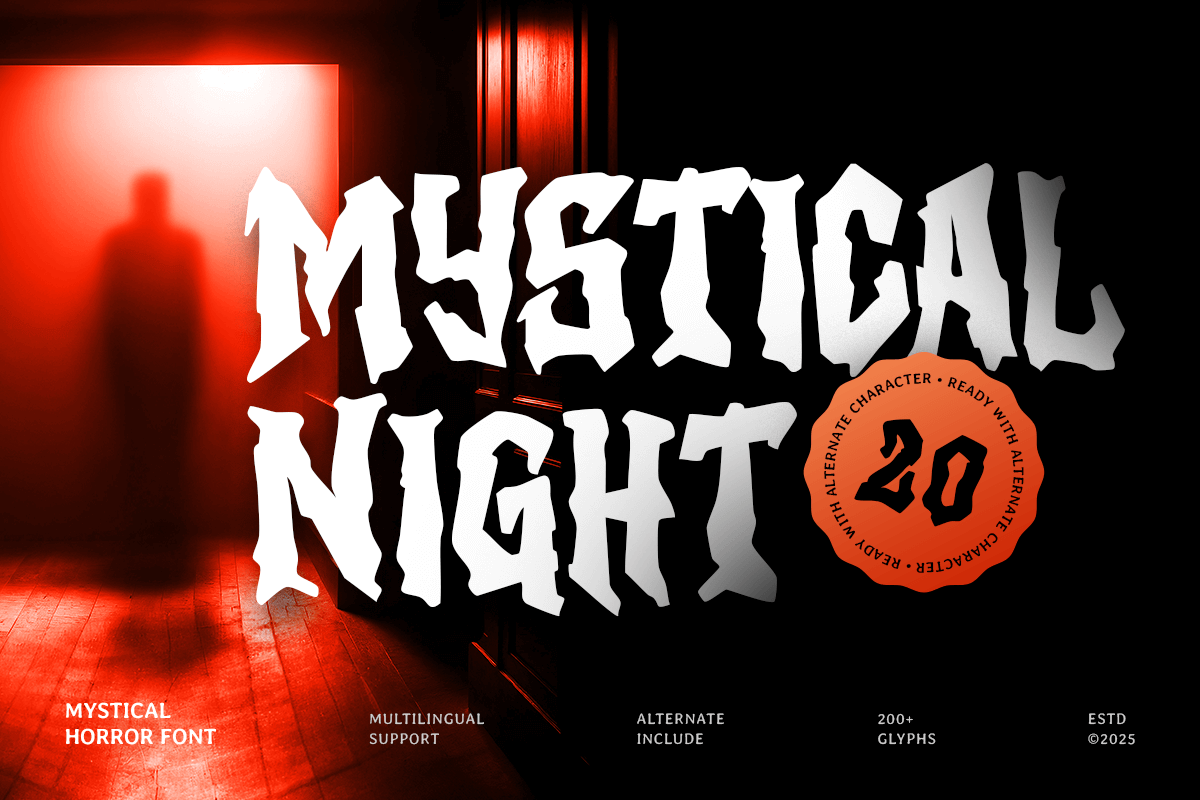
Mystical Night
-Mystical Horror Font
Mystical Night – Mystical Horror Font
Mystical Night is a mystical horror font inspired by dark atmospheres, supernatural stories, and mysterious night visions. With its eerie character shapes and haunting details, Mystical Night creates a powerful visual style perfect for horror-themed projects, fantasy artwork, and cinematic designs.
Designed for horror posters, movie titles, book covers, Halloween graphics, logos, game branding, and dark packaging, Mystical Night brings an unforgettable atmosphere to every composition. Its dramatic appearance helps designers create visuals filled with mystery, suspense, and supernatural energy.
Whether you are creating a horror film identity, dark fantasy artwork, occult-inspired branding, or immersive storytelling visuals, Mystical Night delivers a unique presence that captures the beauty of the unknown.
Mystical Night – Mystical Horror Font Features
• Dark mystical letterforms with horror-inspired details
• Perfect for horror posters, movie titles, and Halloween designs
• Ideal for logos, book covers, gaming, and dark branding
• Works beautifully for digital and print projects
• Creates a mysterious and cinematic atmosphere
• OpenType features for creative flexibility
Unleash a mysterious atmosphere with Mystical Night – a horror font designed to bring dark imagination to life. 🌙